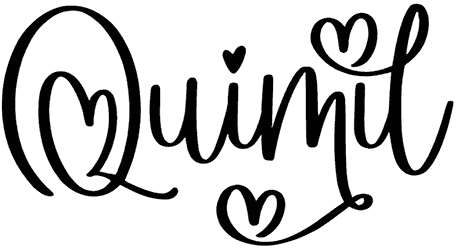
Quimil Font
Here we are again with a feminine font that is incredibly suitable for any kind of artistic poster, logo, brochures, and gift cards. Quimil comes with a cursive design, and due to its sophisticated flow, reading its characters might be a little tricky.
We believe that sharing a sense of love, softness, dreaminess, and femininity would boost the quality of your artwork. If you have the same opinion, pick up this font.